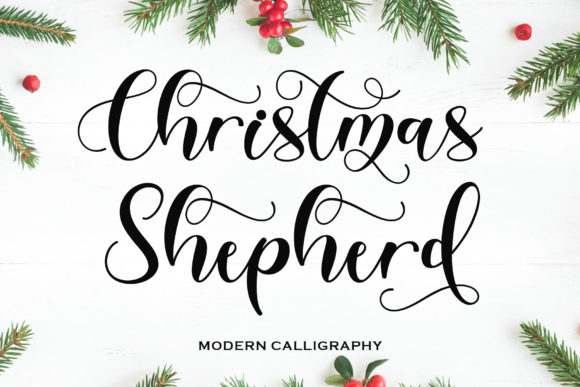
Introducing Christmas Shepherd Font: A Festive and Luxurious Calligraphy Typeface
Are you looking for a font that adds a touch of luxury and festivity to your design projects? Look no further than Christmas Shepherd Font, a beautiful and sweet calligraphy typeface that’s perfect for the holiday season. In this article, we’ll explore the features and benefits of Christmas Shepherd Font, and show you how it can elevate your designs to the next level.
What is Christmas Shepherd Font?
Christmas Shepherd Font is a festive and elegant calligraphy typeface that’s designed to bring a touch of luxury to your designs. With its unique and playful characters that dance along the baseline, this font is sure to add a spark of creativity to any project. Whether you’re working on a holiday-themed design, a branding project, or simply want to add some festive flair to your work, Christmas Shepherd Font is the perfect choice.
Key Features of Christmas Shepherd Font
- Festive and Elegant Design: Christmas Shepherd Font features a unique and playful design that’s perfect for the holiday season. Its elegant and cursive style makes it ideal for a wide range of design projects.
- PUA Encoded: This font is PUA encoded, which means you can access all of the amazing glyphs and ligatures with ease. This makes it simple to use and customize the font to suit your needs.
- Luxury Spark: With Christmas Shepherd Font, you can add a touch of luxury to any design project. Its elegant and sophisticated style makes it perfect for high-end branding, packaging, and marketing materials.
Benefits of Using Christmas Shepherd Font
So why choose Christmas Shepherd Font for your design projects? Here are just a few benefits of using this amazing font:
- Stand Out from the Crowd: With its unique and playful design, Christmas Shepherd Font is sure to make your designs stand out from the crowd. Whether you’re working on a holiday-themed project or simply want to add some festive flair to your work, this font is the perfect choice.
- Ease of Use: Christmas Shepherd Font is PUA encoded, which makes it simple to use and customize. You can access all of the amazing glyphs and ligatures with ease, and get started with your design project right away.
- Versatility: This font is perfect for a wide range of design projects, from holiday-themed designs to branding and marketing materials. Its elegant and sophisticated style makes it ideal for high-end designs.
- Choose Your Glyphs: With Christmas Shepherd Font, you can access a wide range of glyphs and ligatures. Choose the ones that best suit your design project and get creative!
- Experiment and Have Fun: Don’t be afraid to experiment and try new things with Christmas Shepherd Font. Its unique and playful design makes it perfect for creative and innovative designs.
Christmas Shepherd Font is perfect for designers and crafters who want to add a touch of luxury and festivity to their designs. Whether you’re working on a holiday-themed project, a branding project, or simply want to add some festive flair to your work, this font is the perfect choice.
- Digital Designers: If you’re a digital designer, Christmas Shepherd Font is a great addition to your font library. Use it to create stunning holiday-themed designs, social media graphics, and more.
- Crafters: If you’re a crafter, Christmas Shepherd Font is perfect for adding a personal touch to your projects. Use it to create beautiful holiday cards, gift tags, and more.
In conclusion, Christmas Shepherd Font is a beautiful and luxurious calligraphy typeface that’s perfect for the holiday season. With its unique and playful design, PUA encoding, and ease of use, this font is sure to add a spark of creativity to any design project. Whether you’re a designer, crafter, or simply someone who loves the holiday season, Christmas Shepherd Font is a must-have font for your collection.